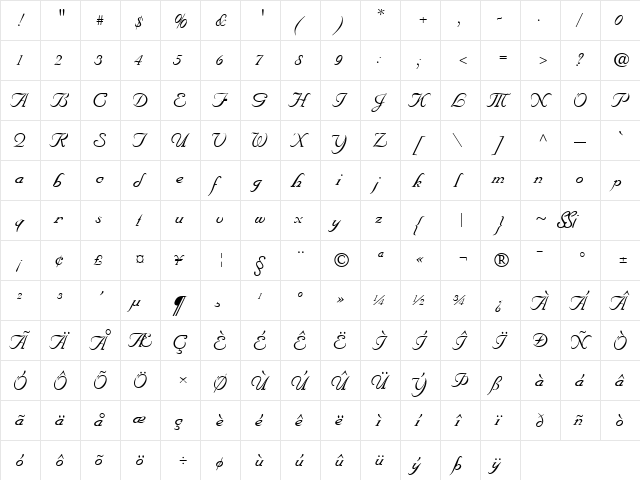
Unicorn Script SSi Regular
Design Context for Unicorn Script SSi Typeface
Unicorn Script SSi flows with the natural rhythm of handwritten lettering, making it ideal for designs that call for warmth and personal expression.
Font Pairing: Combine Unicorn Script SSi with a simple geometric sans for maximum contrast — the tension between flowing curves and clean structure is a classic typographic pairing.
Pro Tip: Pair Unicorn Script SSi with a clean sans-serif for supporting text. The contrast between fluid script and geometric structure creates an elegant typographic hierarchy.